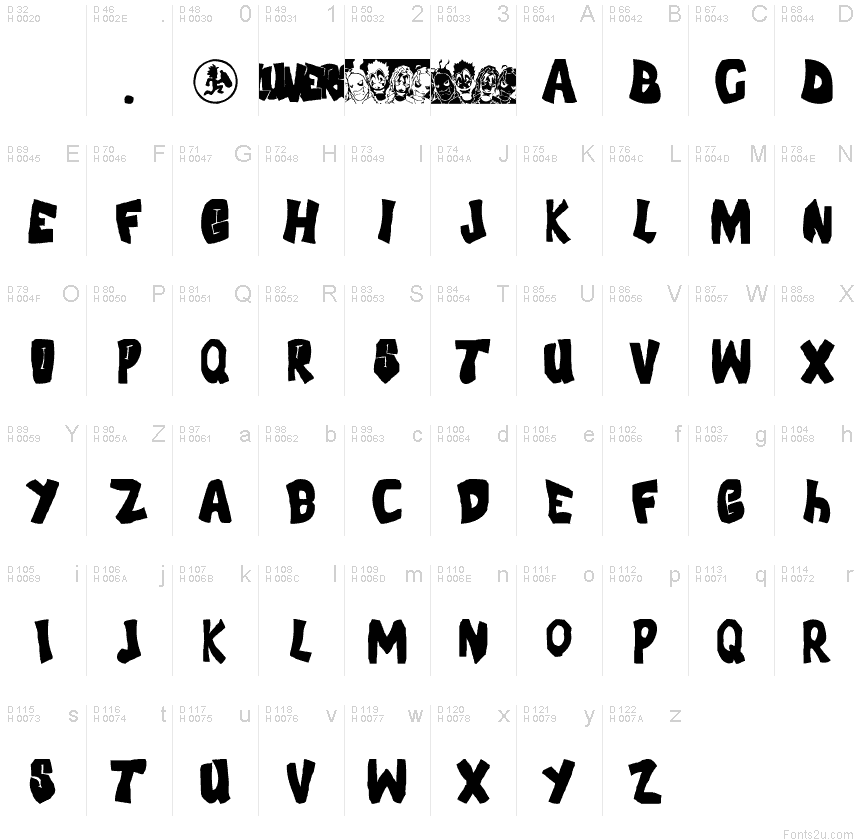
FLH-Font by Deadbody Man of Faygoluvers Heaven is a free distorted cartoon display font with hulking, uneven letterforms. Its blunt strokes bend and flare at odd angles, and the rough outer edges make the lettering look cut from heavy paper by hand with basic tools.
That unruly underground-comic style makes a convincing fit for gig posters, horror game graphics, streetwear merchandise, and low-budget film promotions built around grotesque cartoon imagery. It turns a title into part of the artwork. Independent music labels, comic publishers, and youth-focused entertainment brands are the clearest audience for its thick handmade bulk and deliberately misshapen forms.